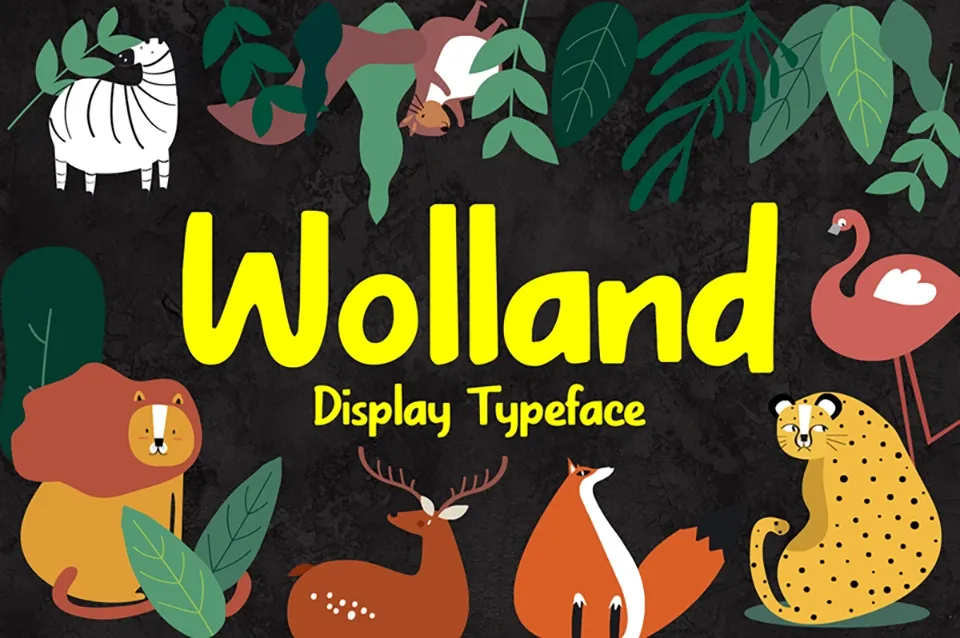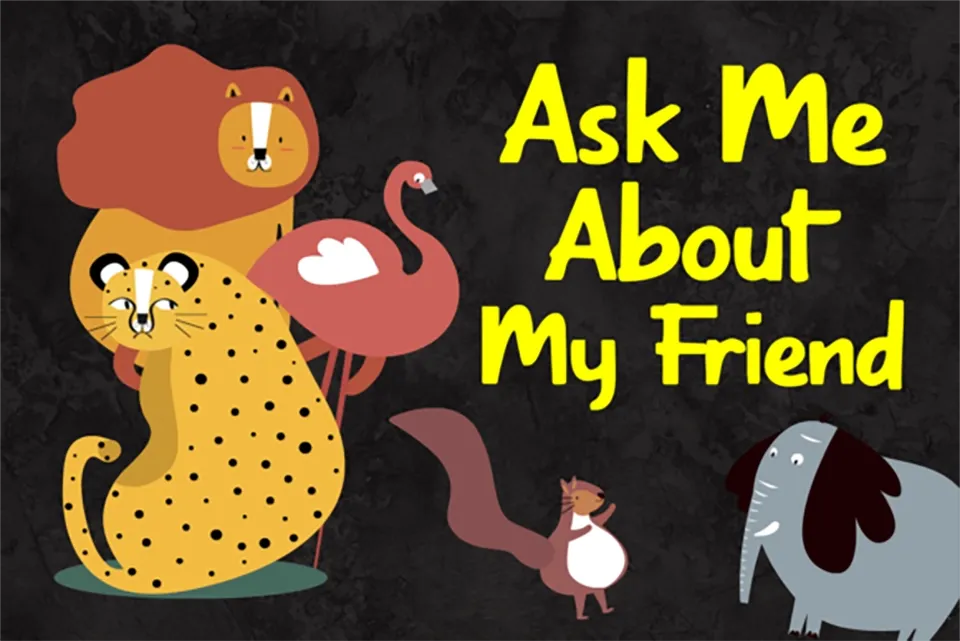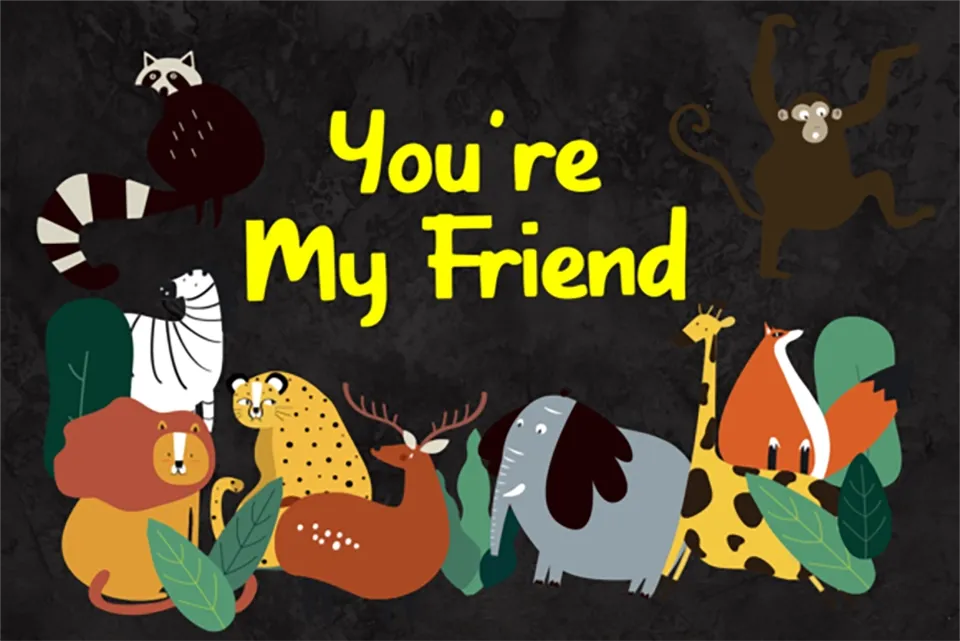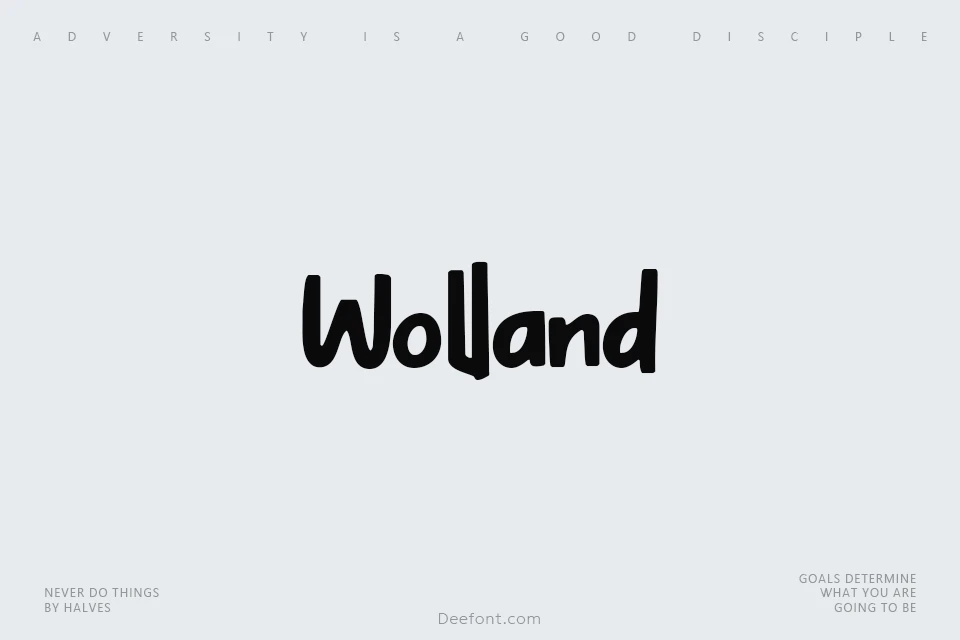
Wolland Font
Wolland Font is a whimsical display font radiating playful charm with its soft, rounded terminals and organic stroke variations. Designed for maximum versatility, it maintains clarity in dense layouts while injecting character as a standalone title. The typeface features subtle ink traps, balanced contrast, and open counters that enhance legibility across both digital and print media – from vibrant social graphics to textured packaging designs. Its casual yet polished aesthetic bridges approachability with professionalism, ideal for branding targeting Gen Z audiences, children’s products, or lifestyle blogs. The family includes stylistic alternates for key glyphs, allowing dynamic text customization. With multilingual support and optimized kerning pairs, Wolland adapts seamlessly to logos, merchandise, and editorial headers while retaining its signature friendly personality.